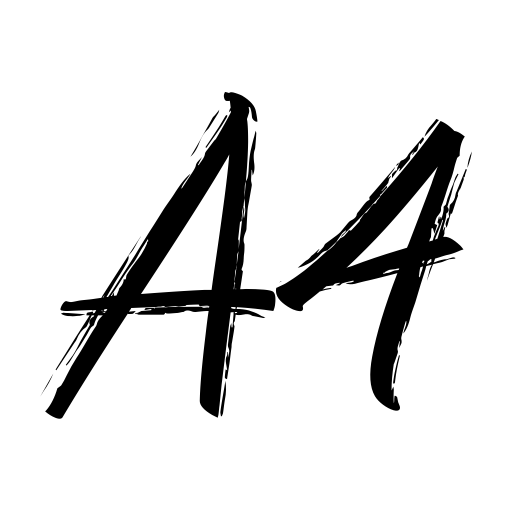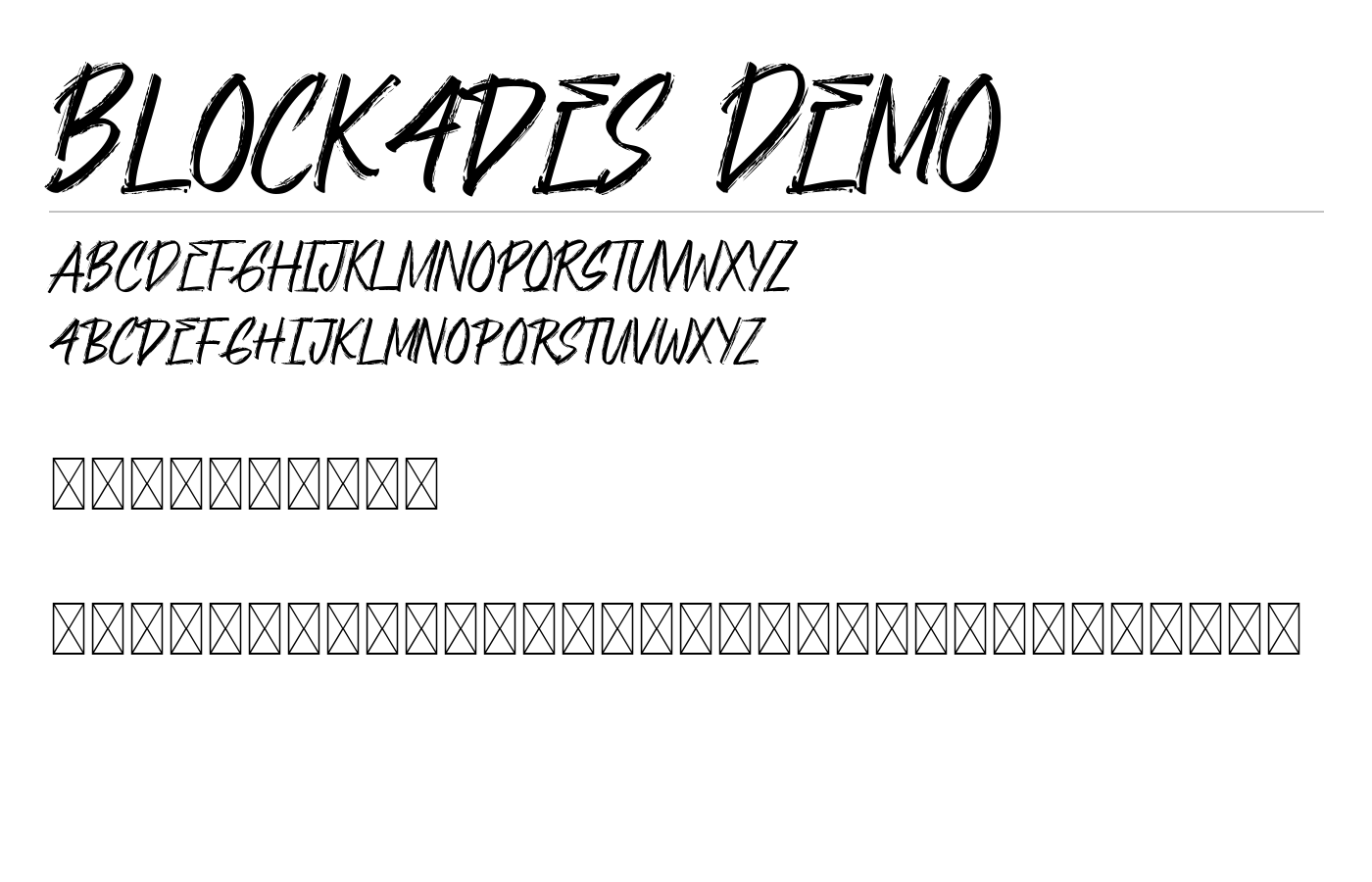
Blockades Demo is a bold, expressive handwritten font with a dynamic brushstroke style that conveys energy and creativity. Its tall, narrow letterforms and rough texture give it a raw, edgy feel, making it perfect for modern, artistic projects like posters, logos, and branding that want to stand out with personality. This font works well when you want to add a personal, informal touch while maintaining a strong, eye-catching presence.
Blockades Demo Font
About Blockades Demo Font
| Font family | Blockades Demo Font |